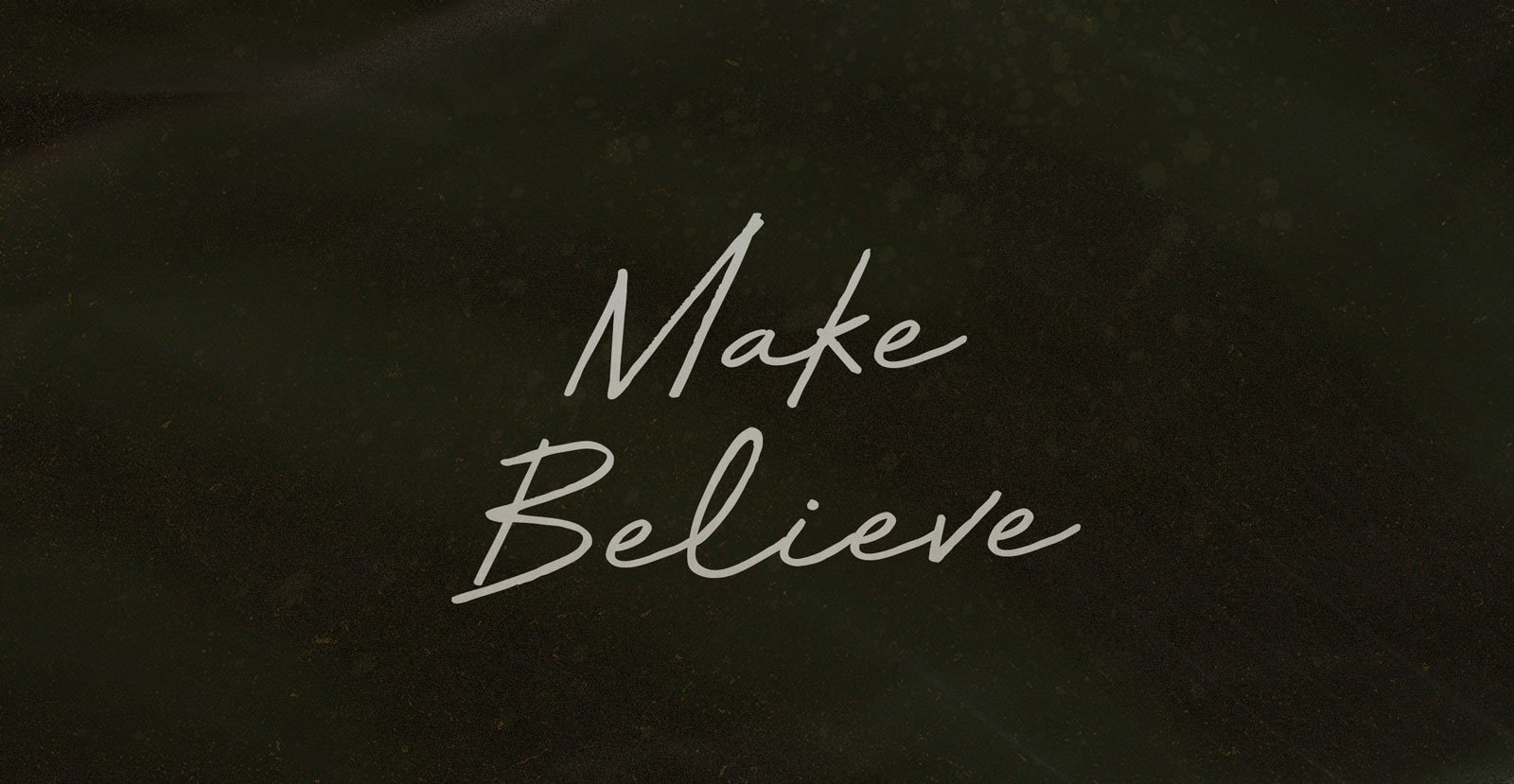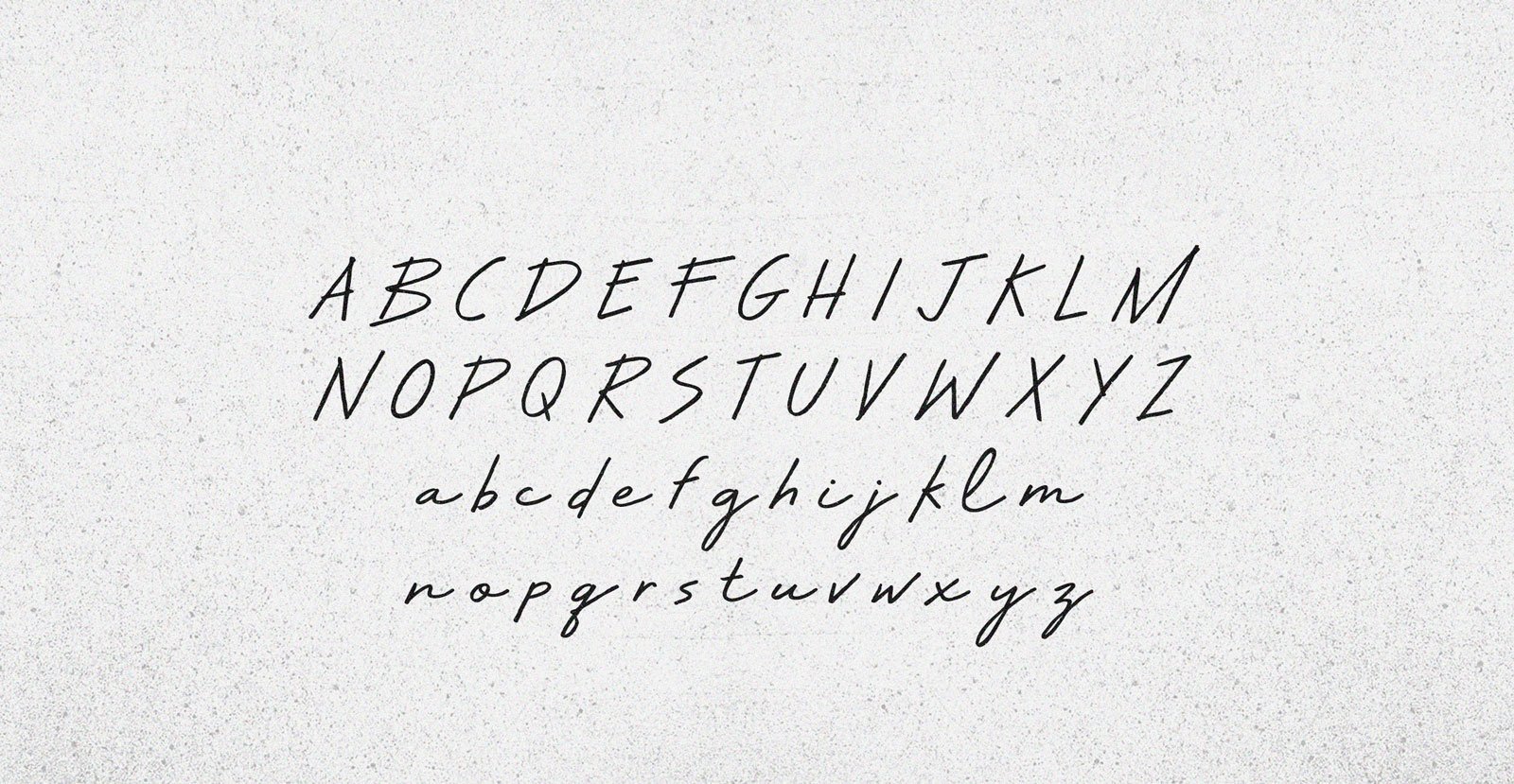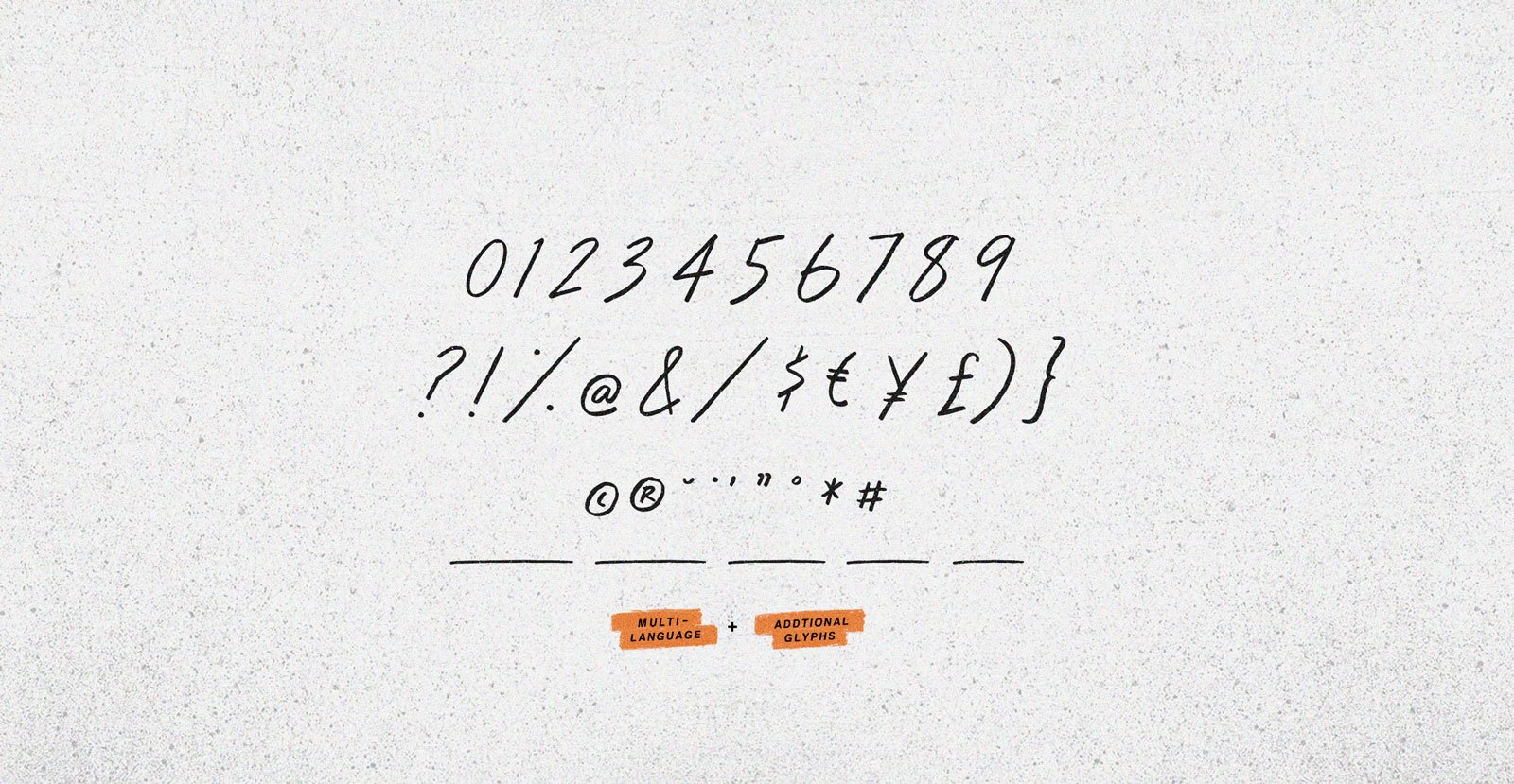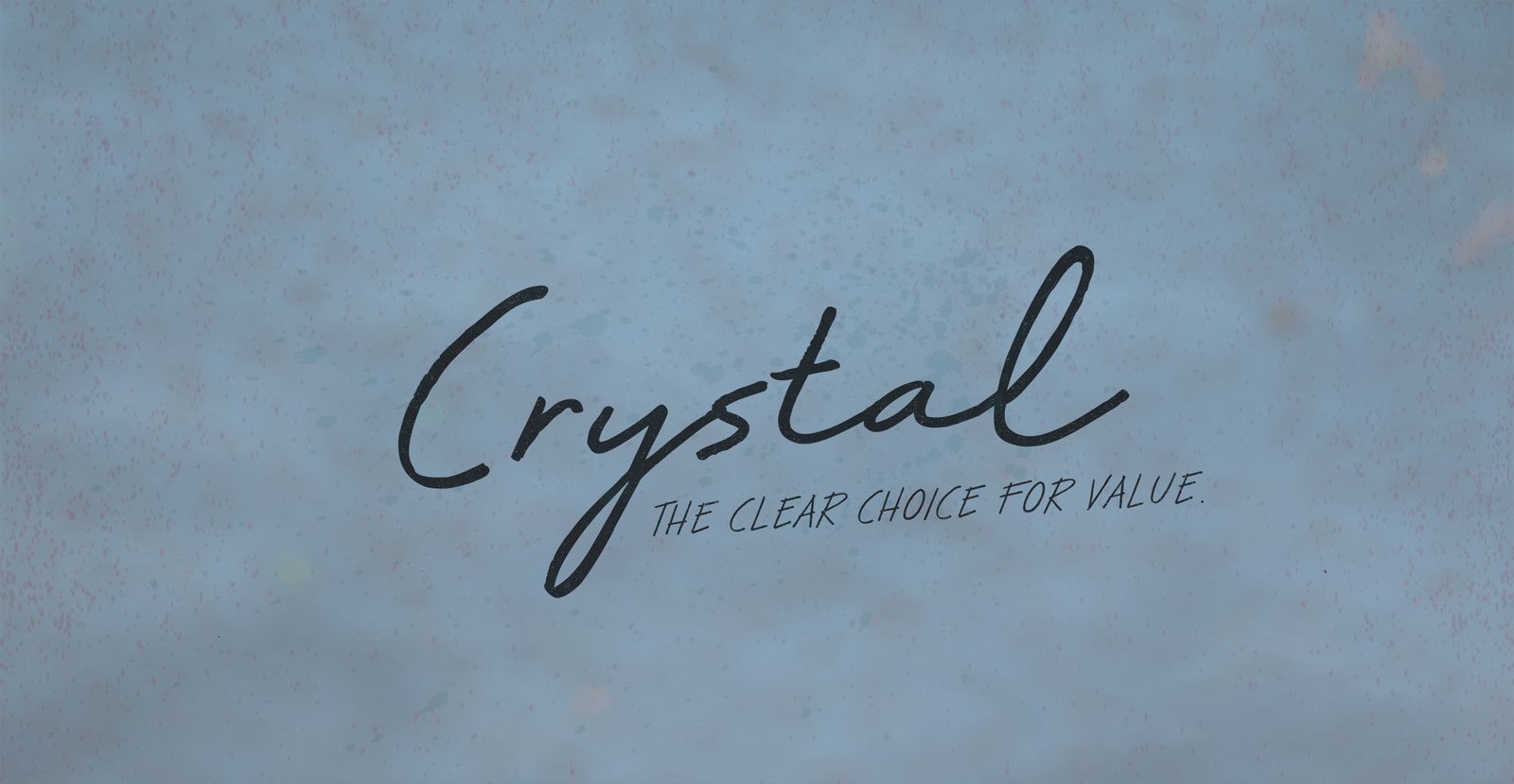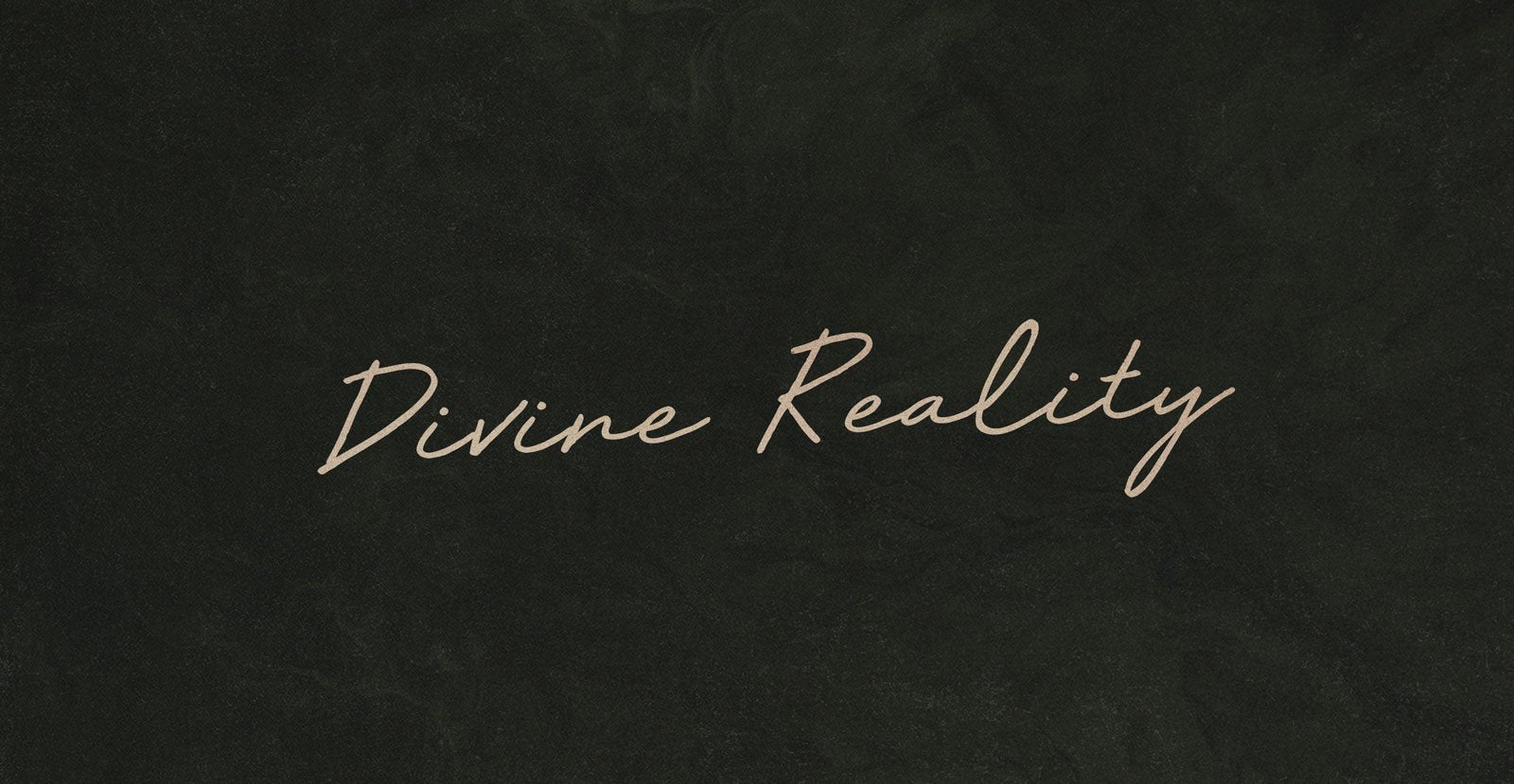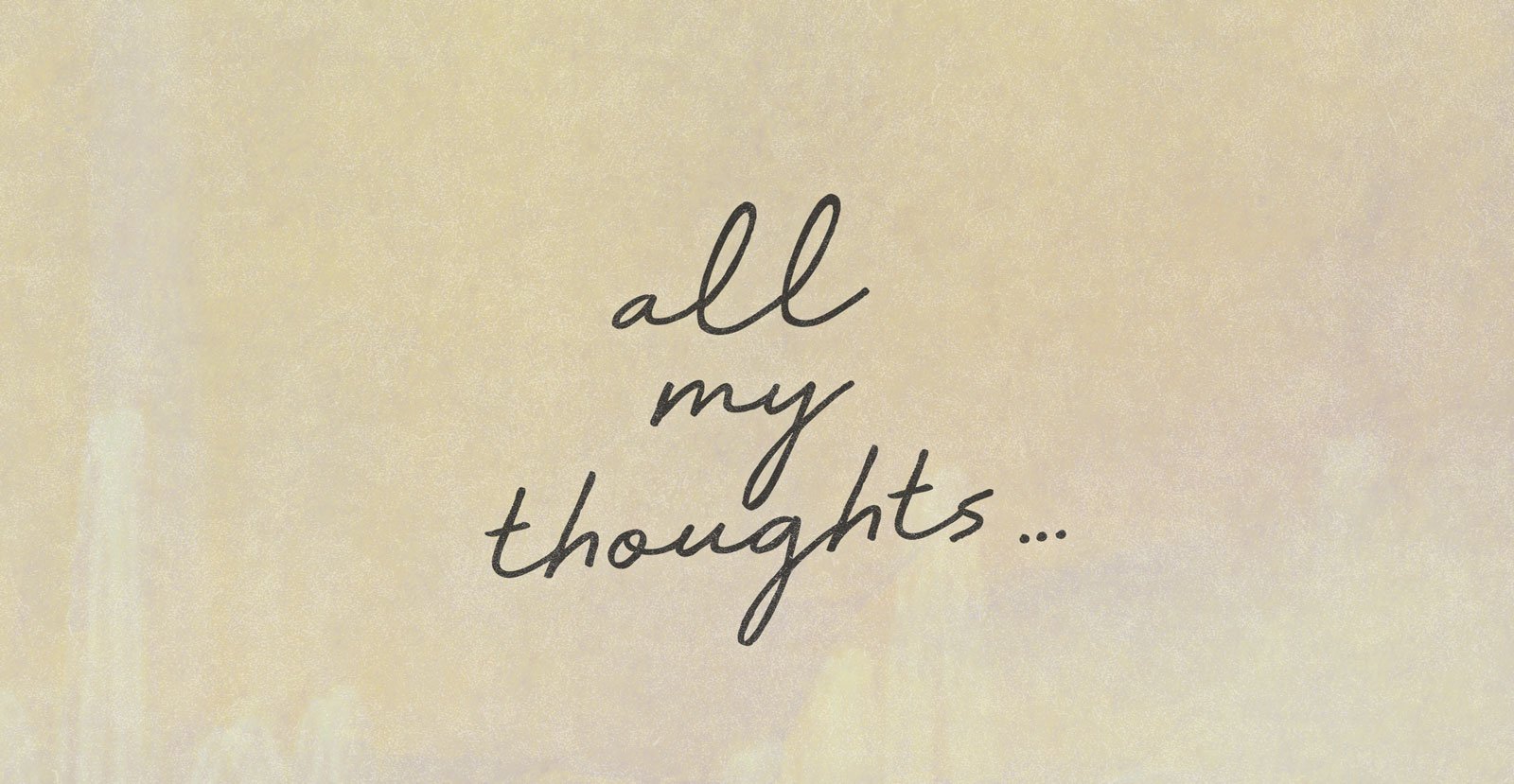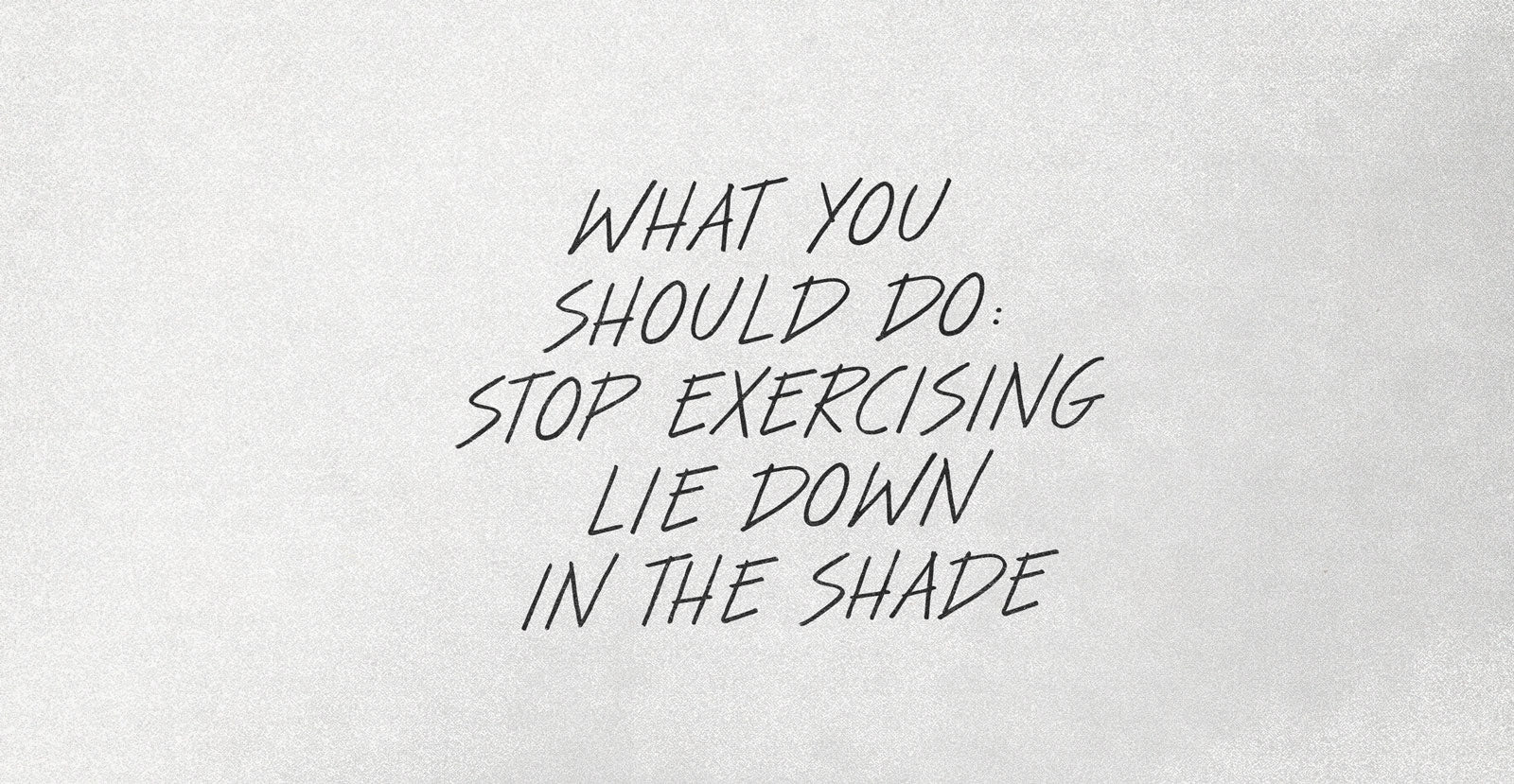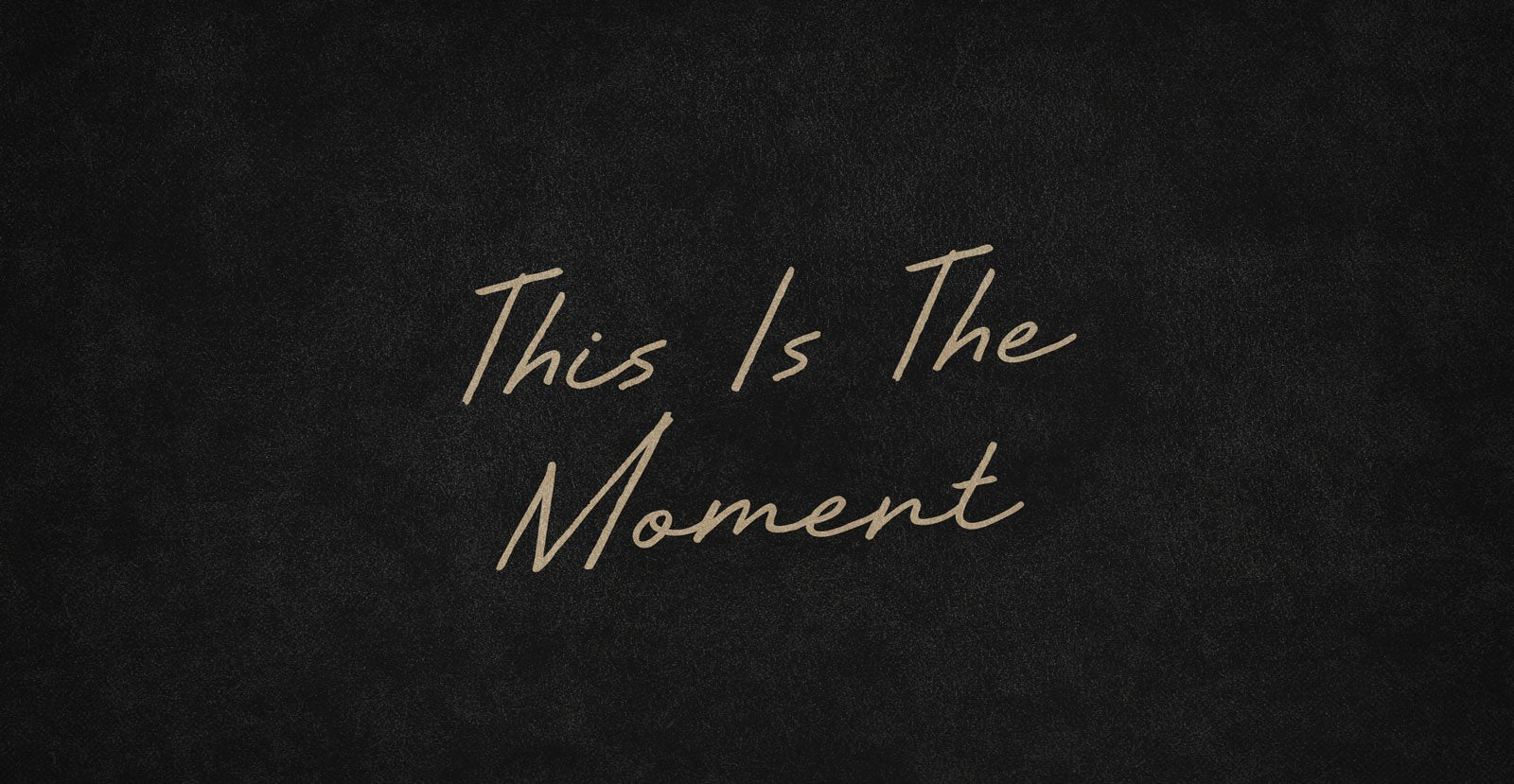
Make Believe
It’s fun. The fantasy has fingers preload cliff-edge grip. Get up. Get on with it. Feel the heat off lathered unicorn flank, smell the death on meaty manticore breath. Safe to take as directed, Make Believe directives.